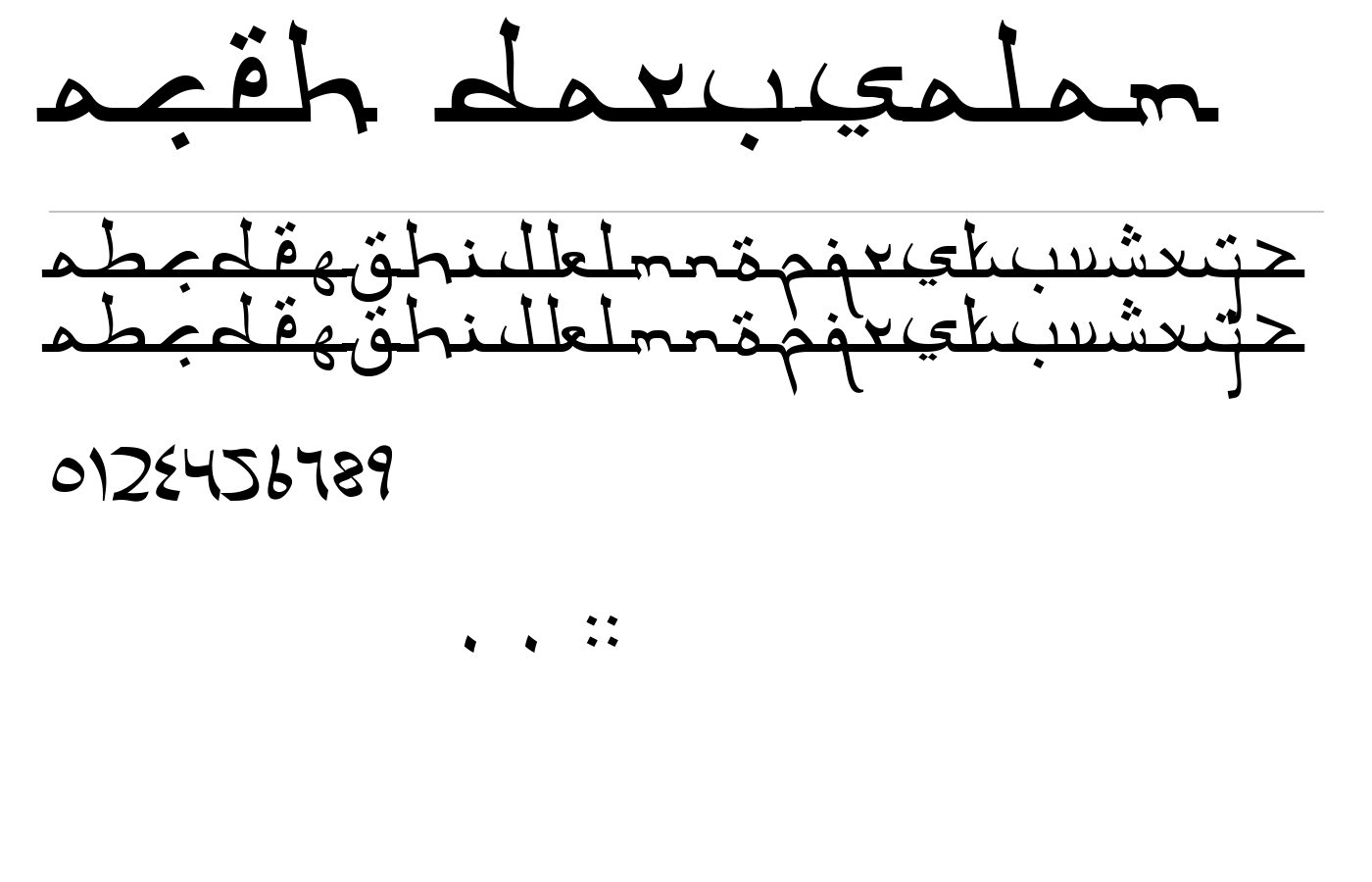
Aceh Darusalam is a unique, handwritten-style Arabic font that features a tall, narrow structure with sharp, angular strokes and a strong horizontal baseline. It exhibits medium stroke contrast and a modern, slightly geometric feel, making it suitable for creative and cultural projects that seek a distinctive and contemporary aesthetic. This font works well in headlines, branding, and editorial use where a bold yet sophisticated Middle Eastern touch is desired.
Aceh Darusalam Font
About Aceh Darusalam Font